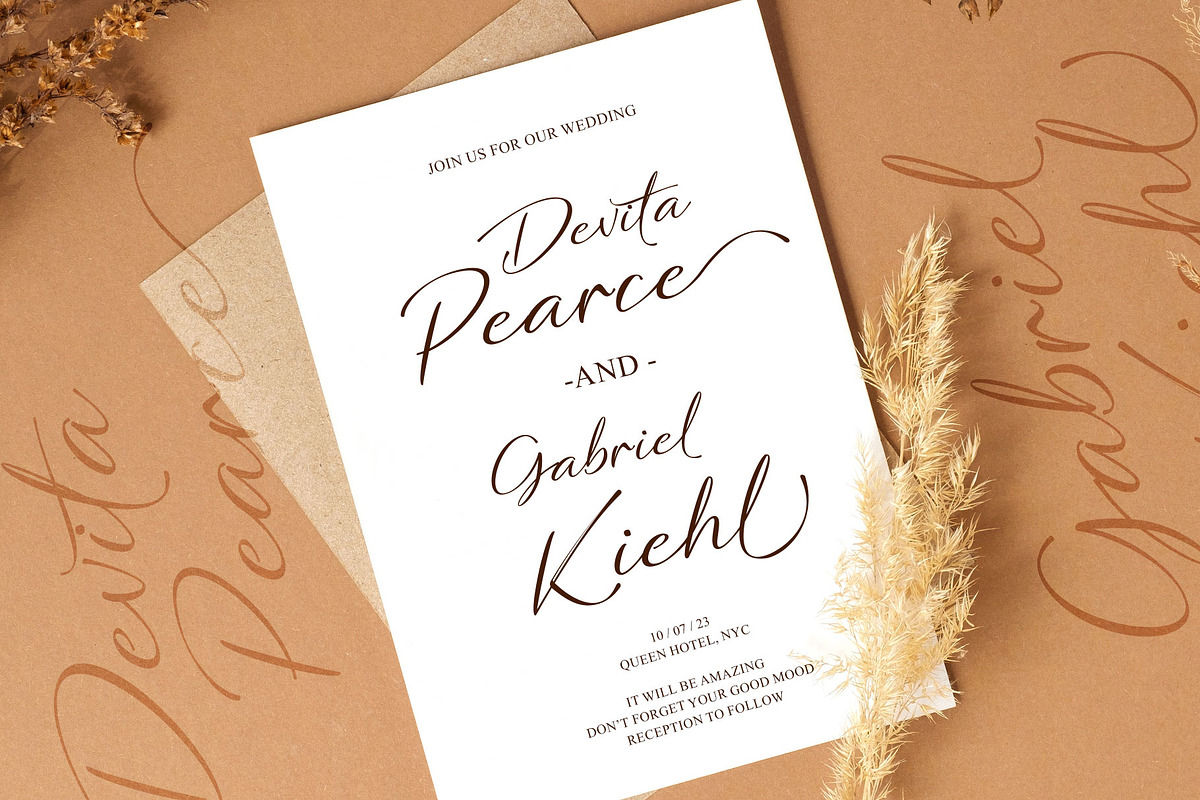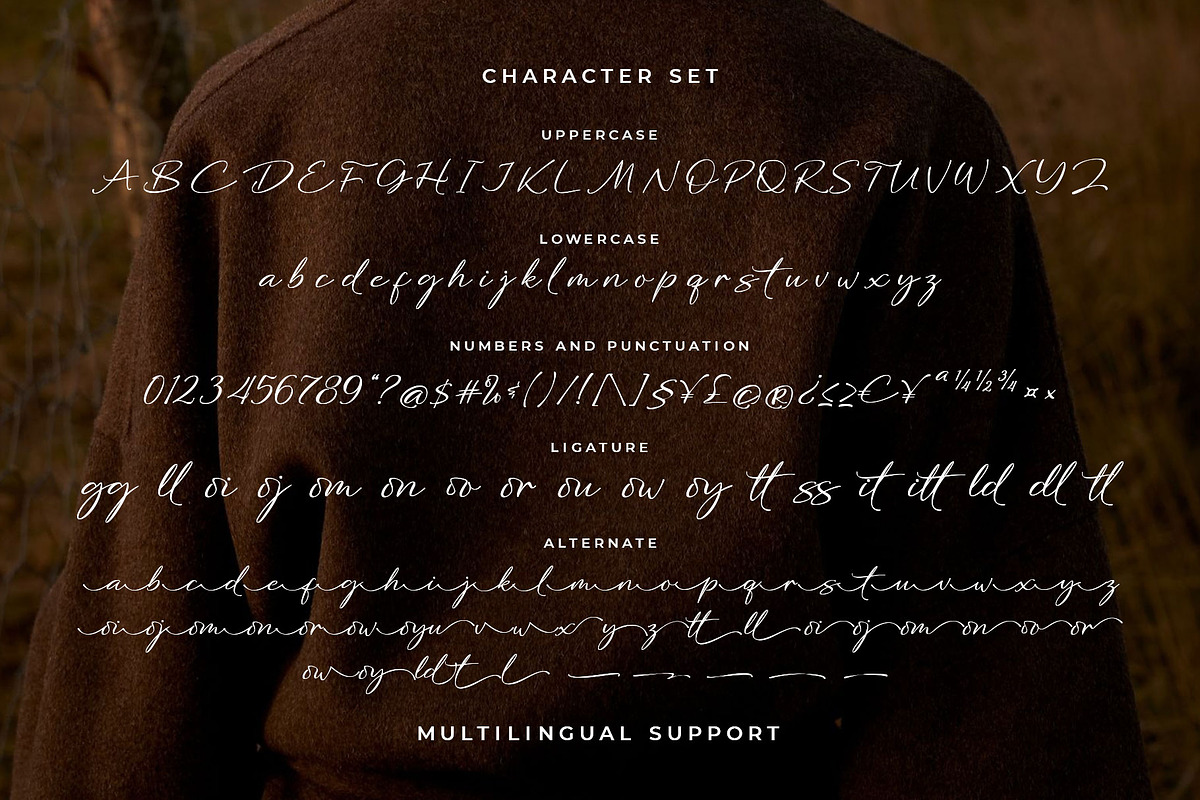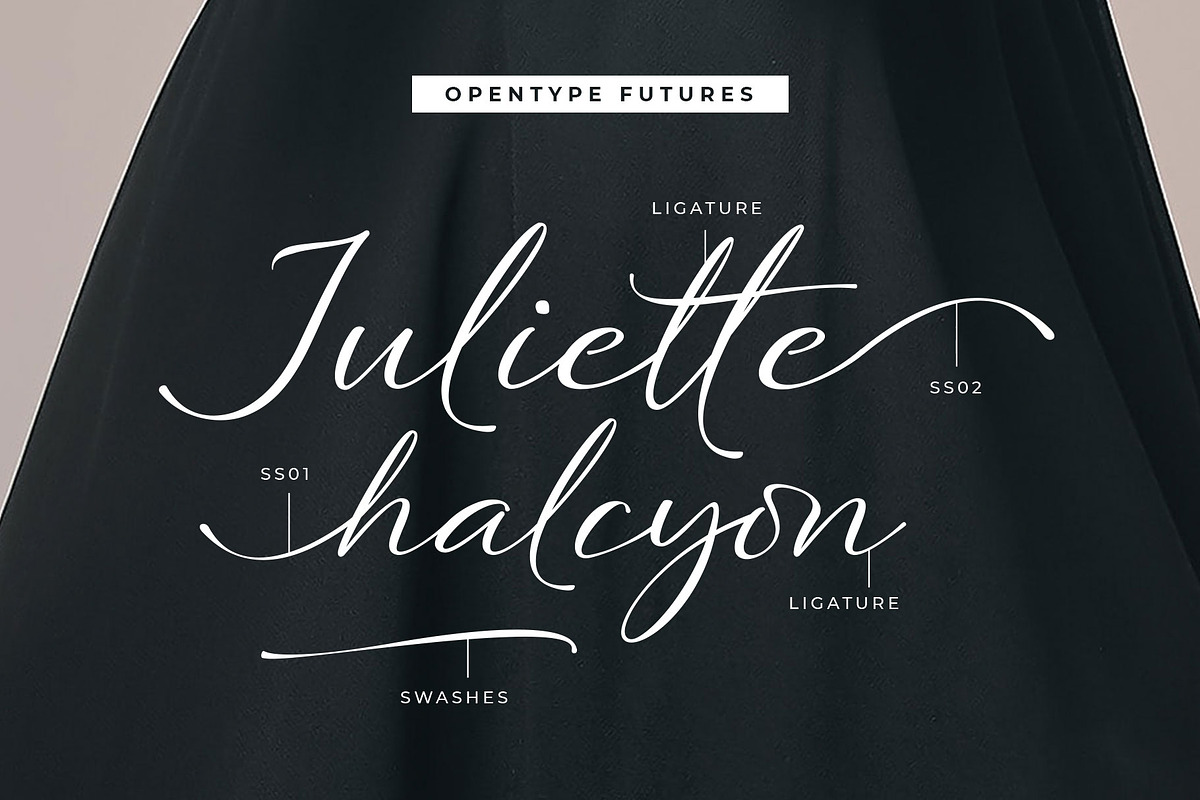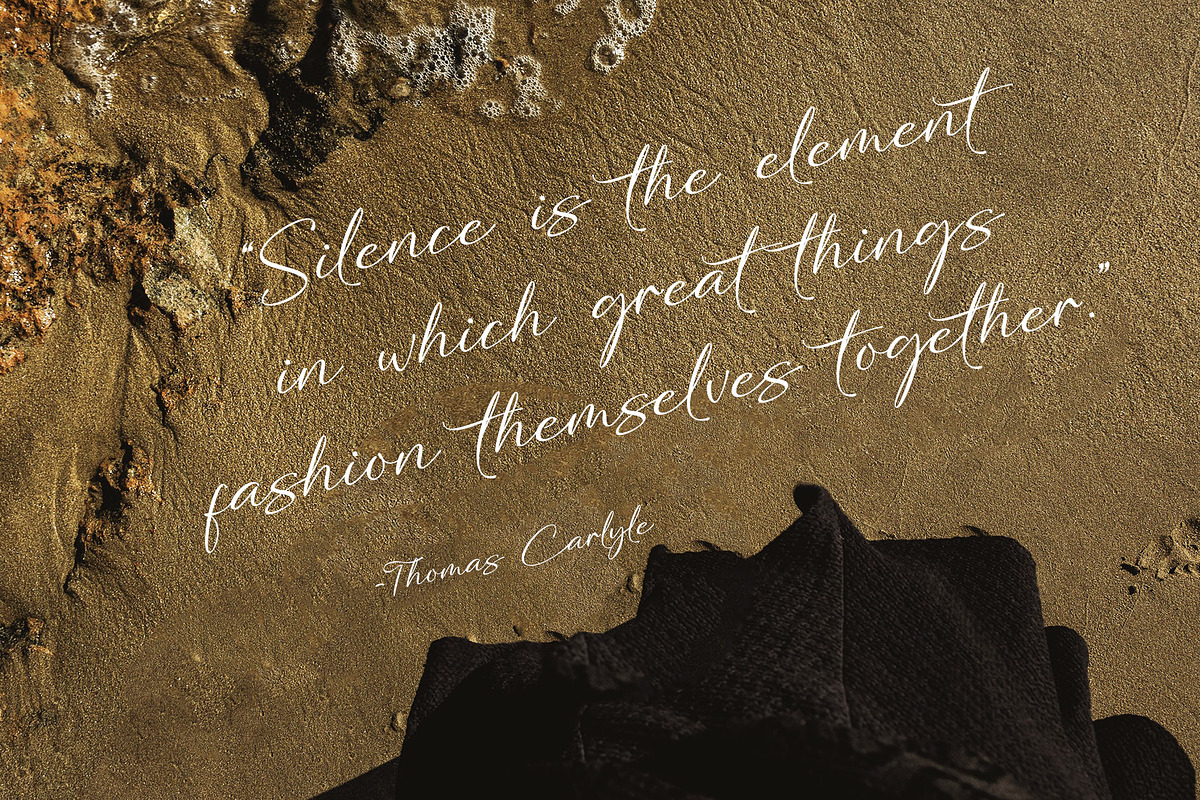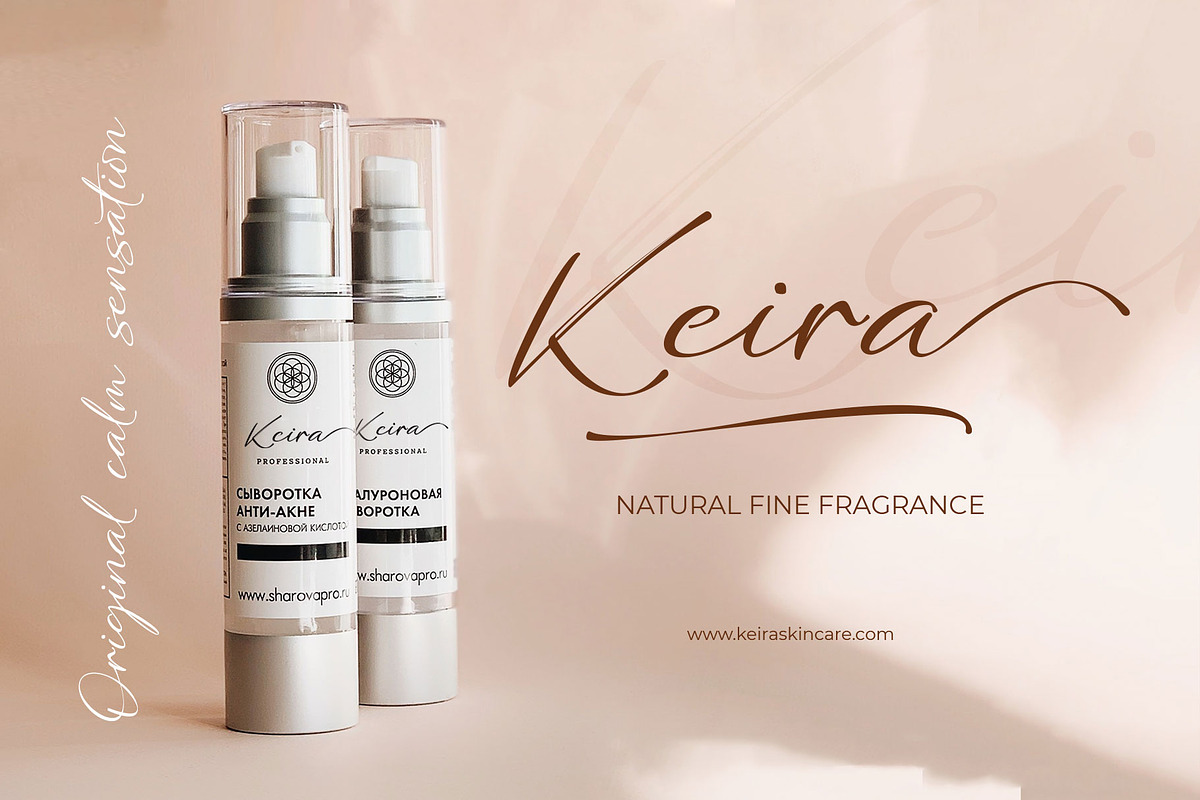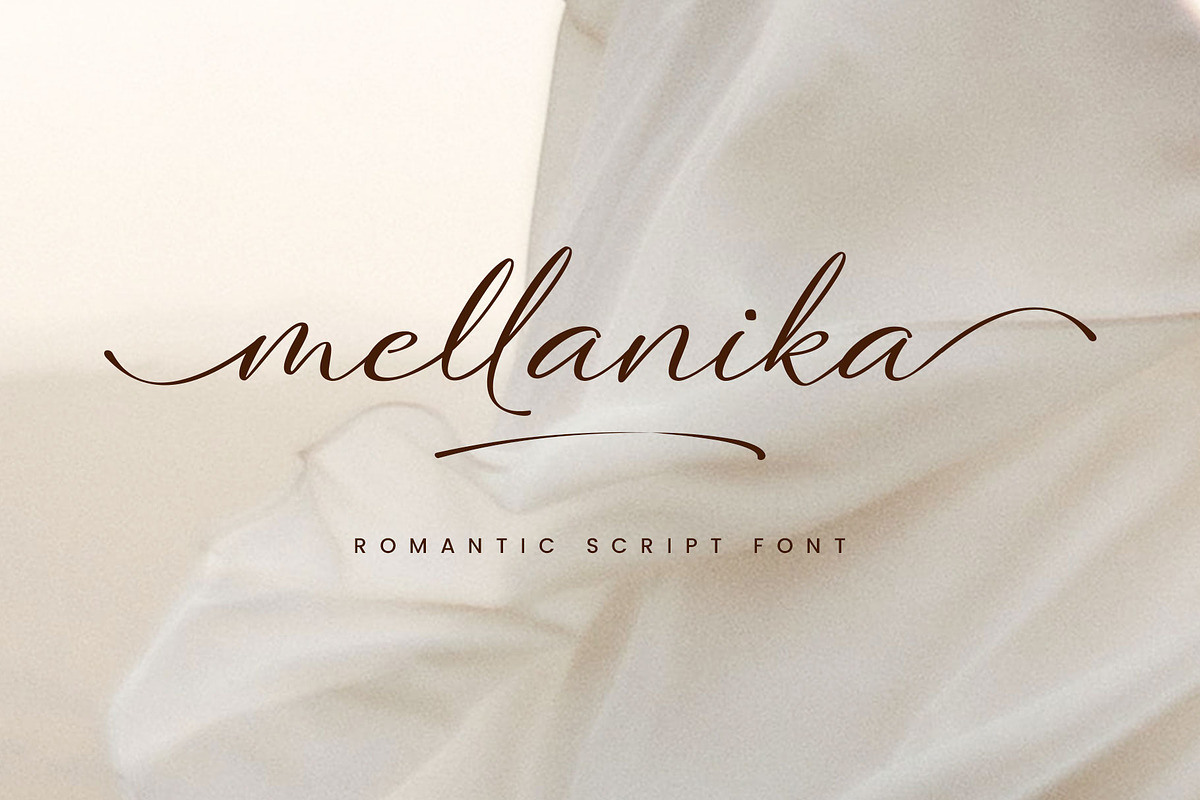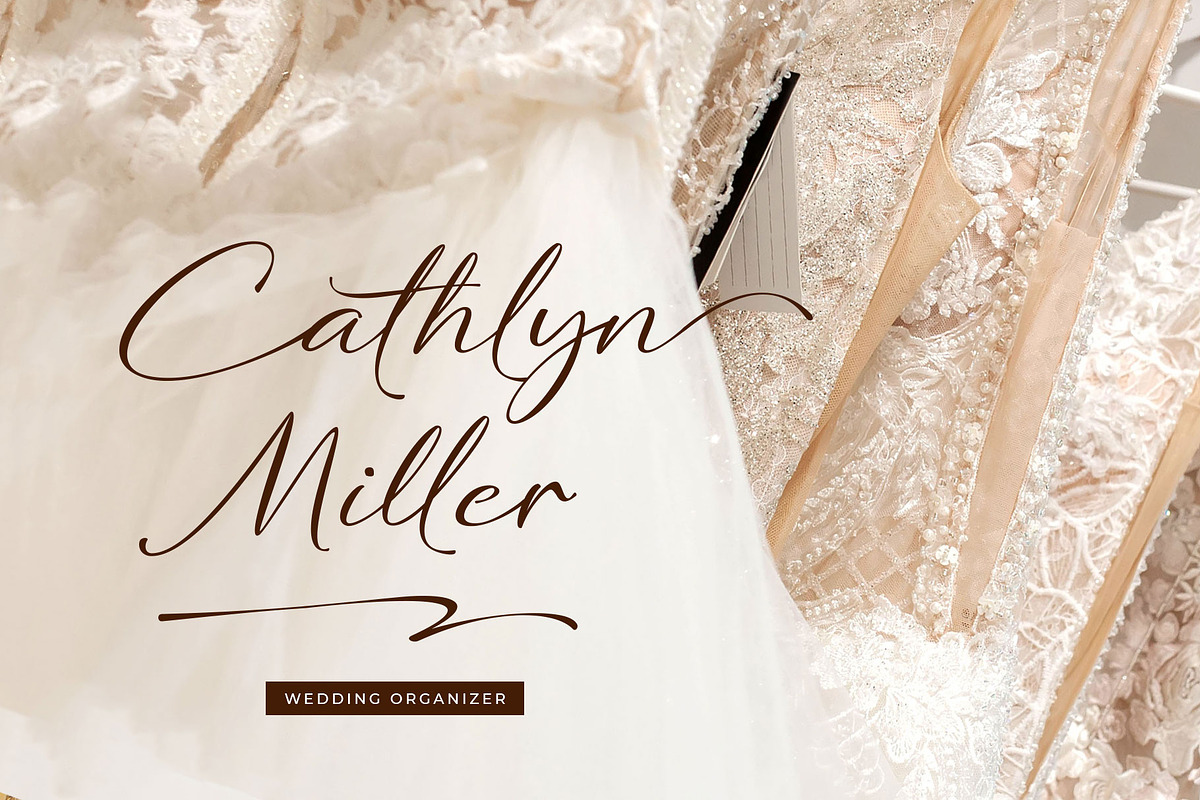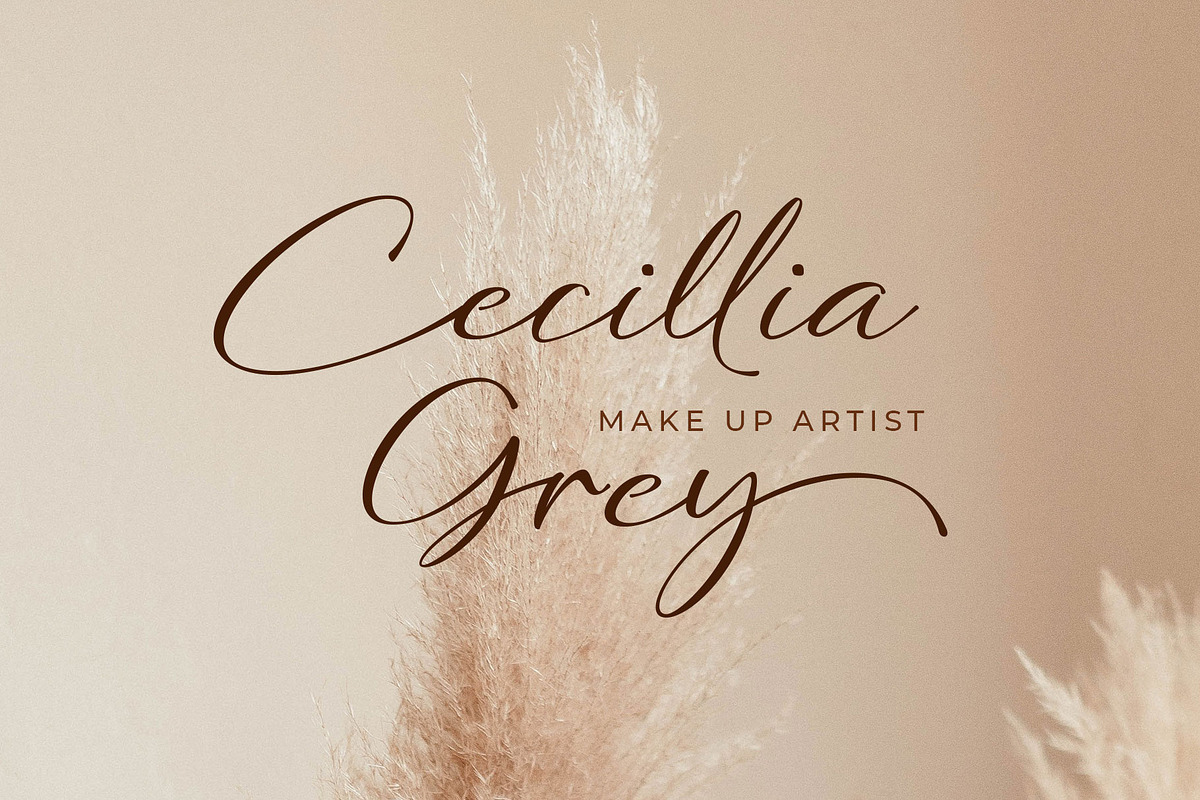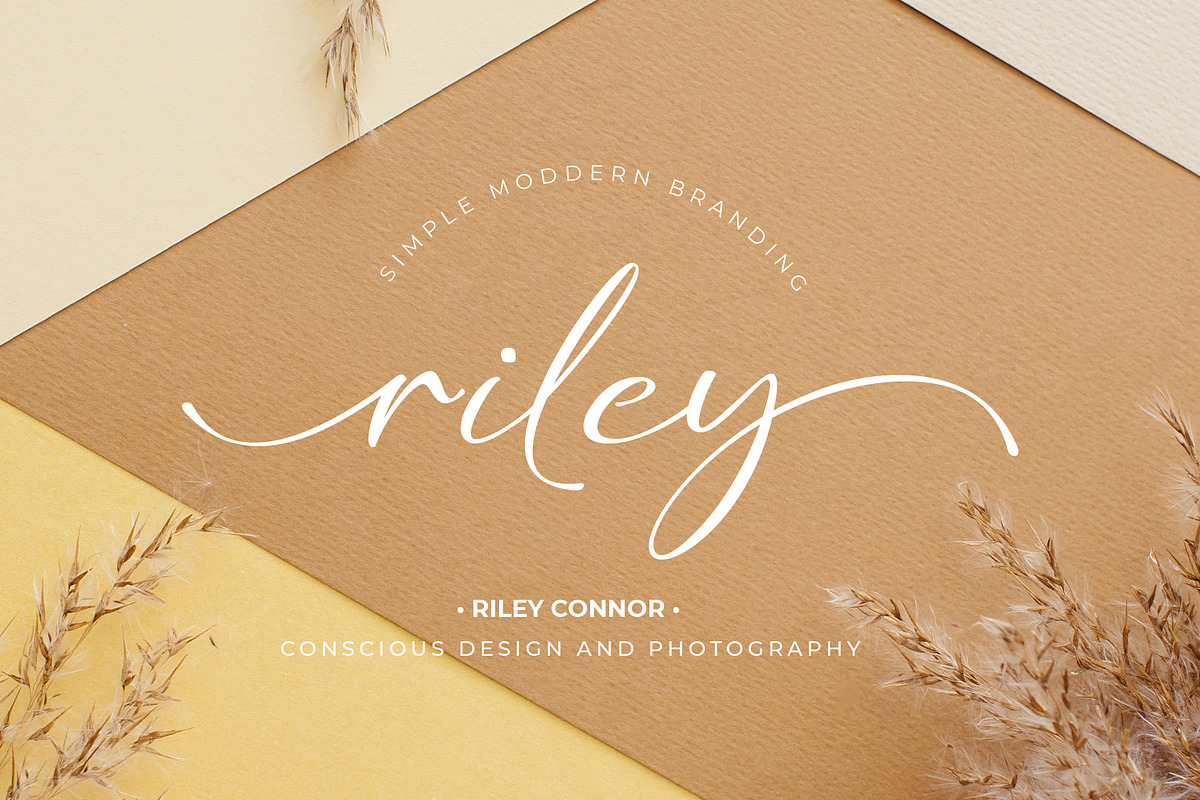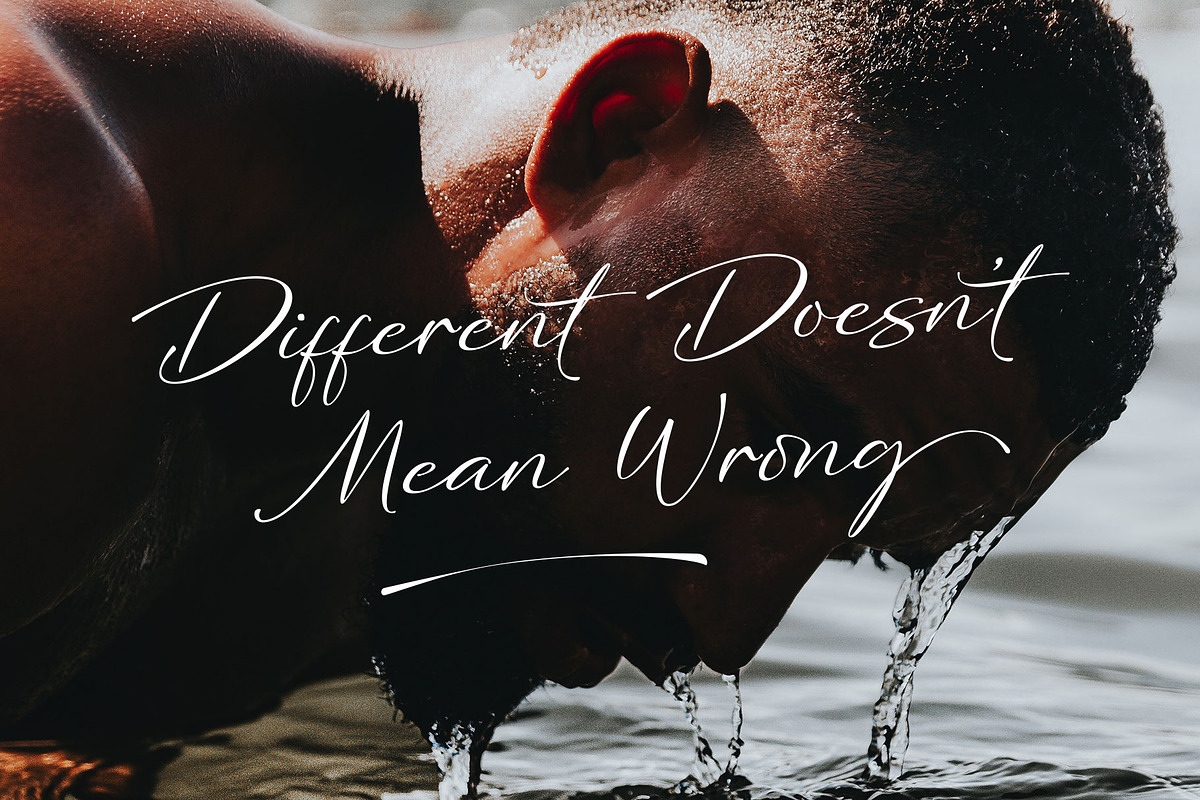
Mellanika
We've got something special for you today - the new Mellanika font! A natural script font, made with handwriting style. This font also has a signature touch that is versatile to apply for many purposes.
Mellanika is feminine, lovable, and visualizes beauty! Recommended to be used on designs that require minimalist, elegant, or clean looks. The script font includes a full character set with alternates, ligatures, and swashes.